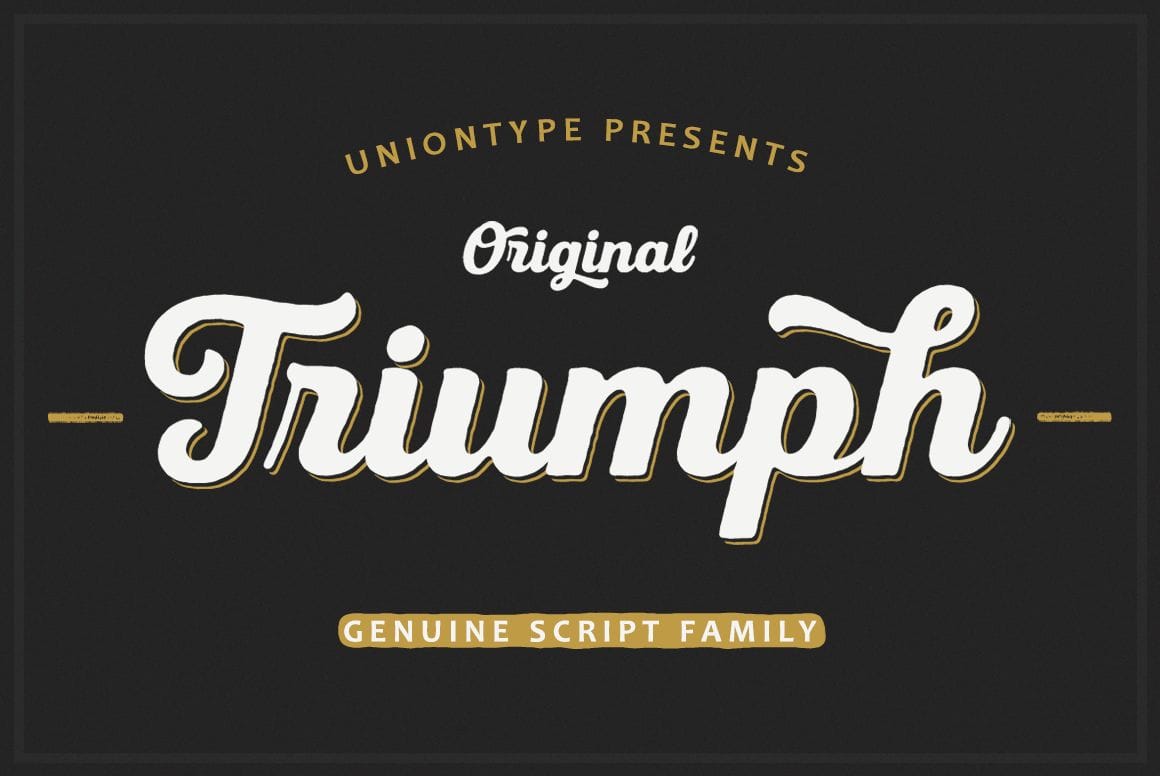
If classic Americana scripts are your thing, then you need to meet the UT Triumph Font Family. Made up of 3 unique weights, this professional script font also features a shadow layer for each, resulting in 6 total fonts. With loads of OpenType features, you’ll have the perfect typeface for everything from menus to logos.
- Modern type family inspired by classic Americana scripts.
- 3 unique weights – Regular, Press and Vintage.
- Shadow layers – add depth to each potential weight.
- OpenType Features – endings, ligatures, swashes, initials, alternates and more.
- Great choice for menus, signs, posters, logos, branding, packaging.
- Western, Central and South Europe multilingual support.